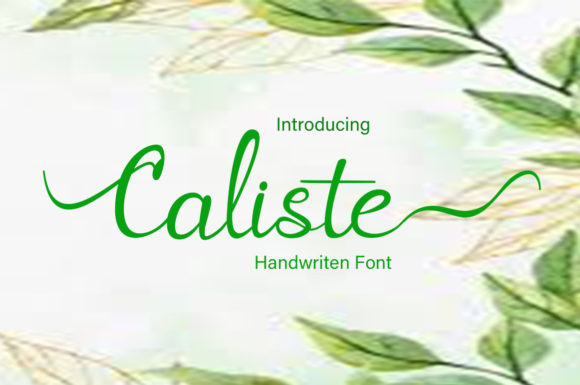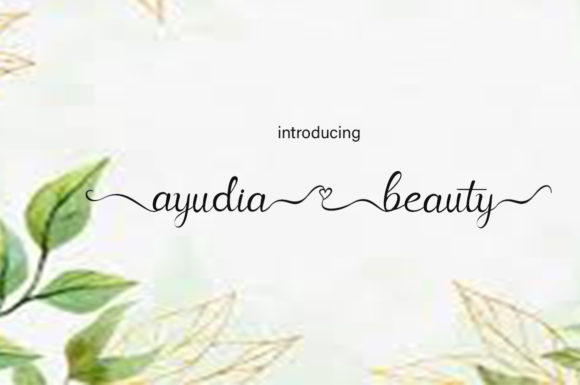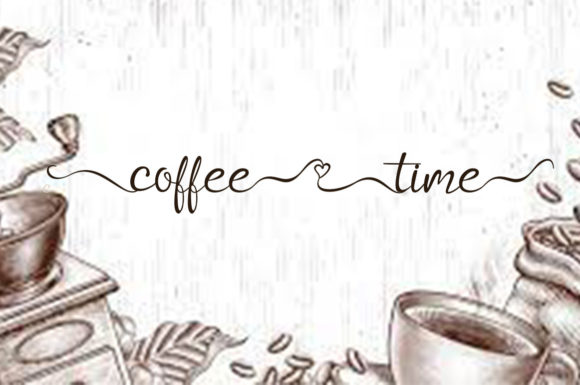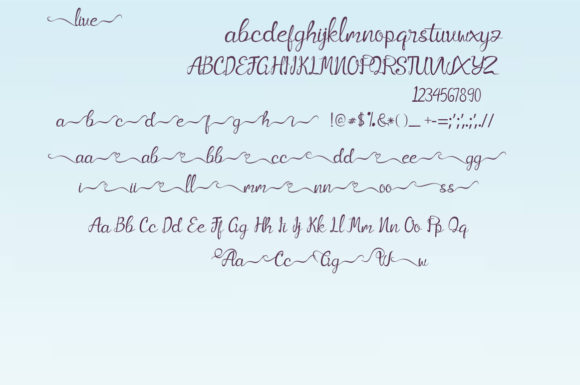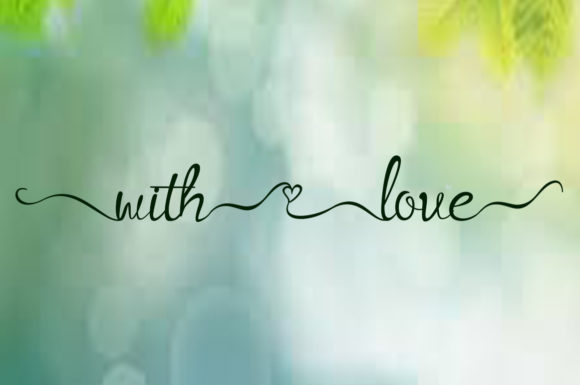
About Caliste Font
Caliste is a lovely script font featuring charming, playful characters that seem to dance along the baseline. Add this font to your most creative ideas, and notice how it makes them stand out!⨠Caliste is PUA encoded which means you can access all of the glyphs and swashes with ease!Â